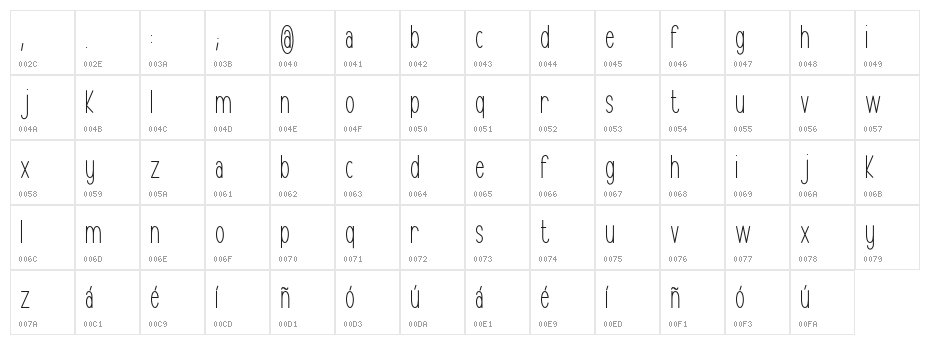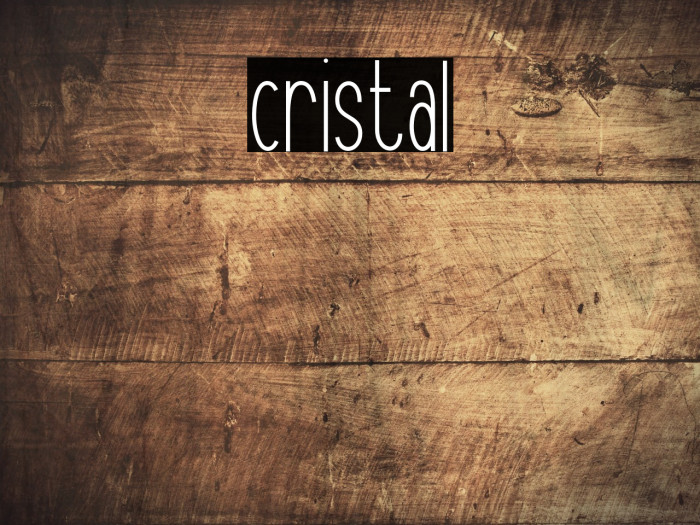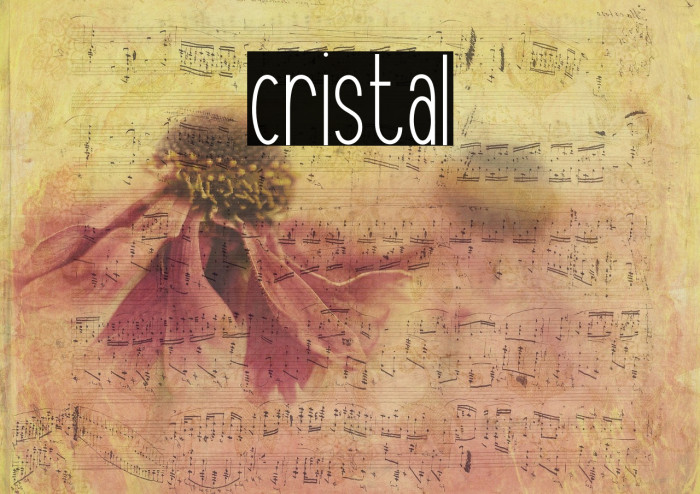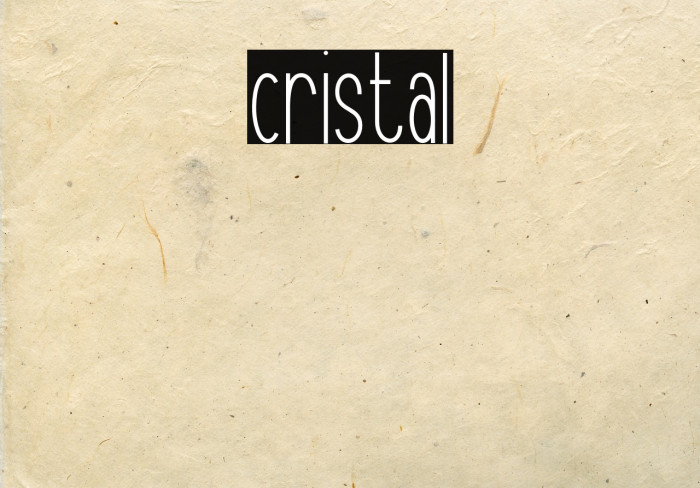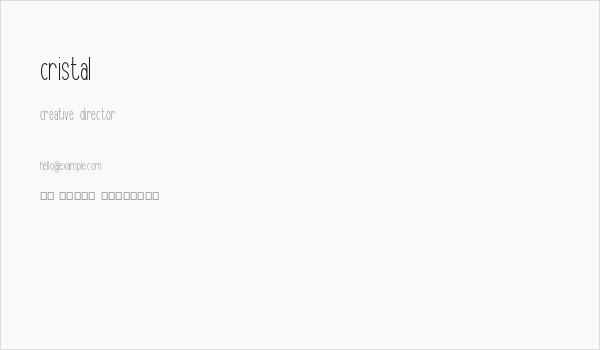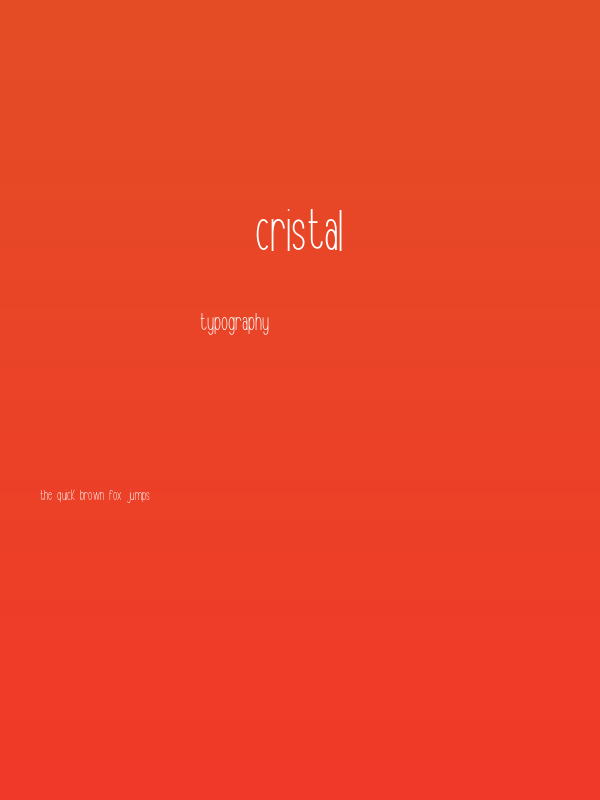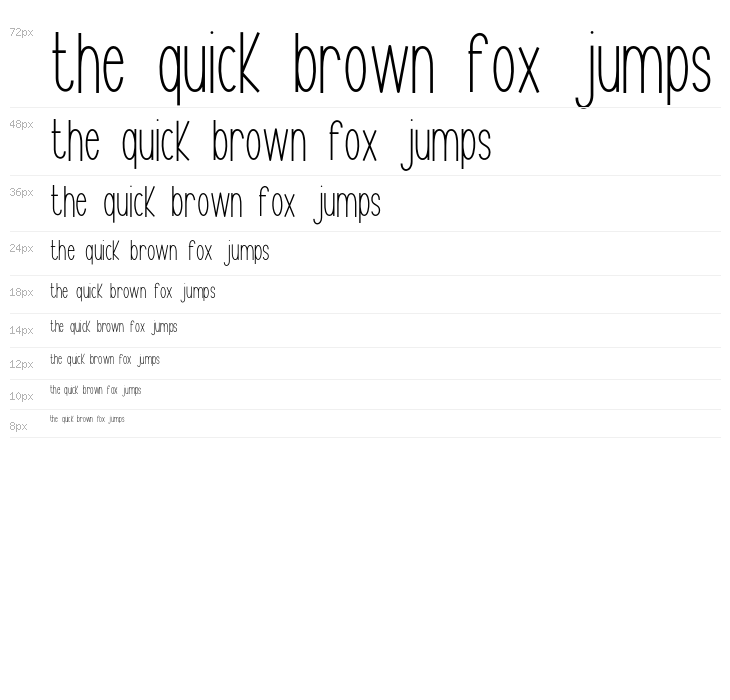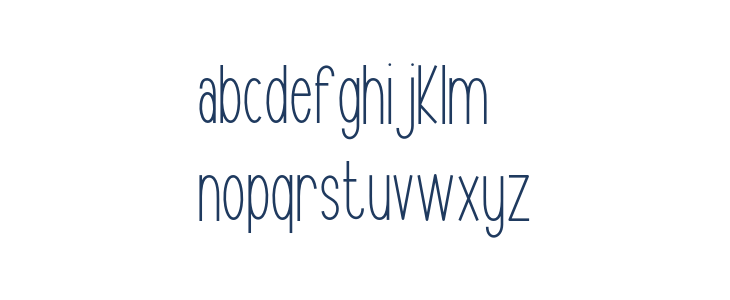
Cristal Font
Cristal Description
This font features a clean, minimalist design with a modern aesthetic. The characters are tall and narrow, giving it an elegant and sophisticated appearance. The strokes are consistent in width, contributing to a uniform look across all letters. The absence of serifs and the geometric shapes of the characters enhance its contemporary feel. The font maintains a balanced proportion, making it versatile for various design applications. Its simplicity and clarity make it highly readable, even at smaller sizes. The overall style is sleek and professional, suitable for both digital and print media.
| Proposed Projects | Ideal for branding, editorial design, web design, and corporate materials. |